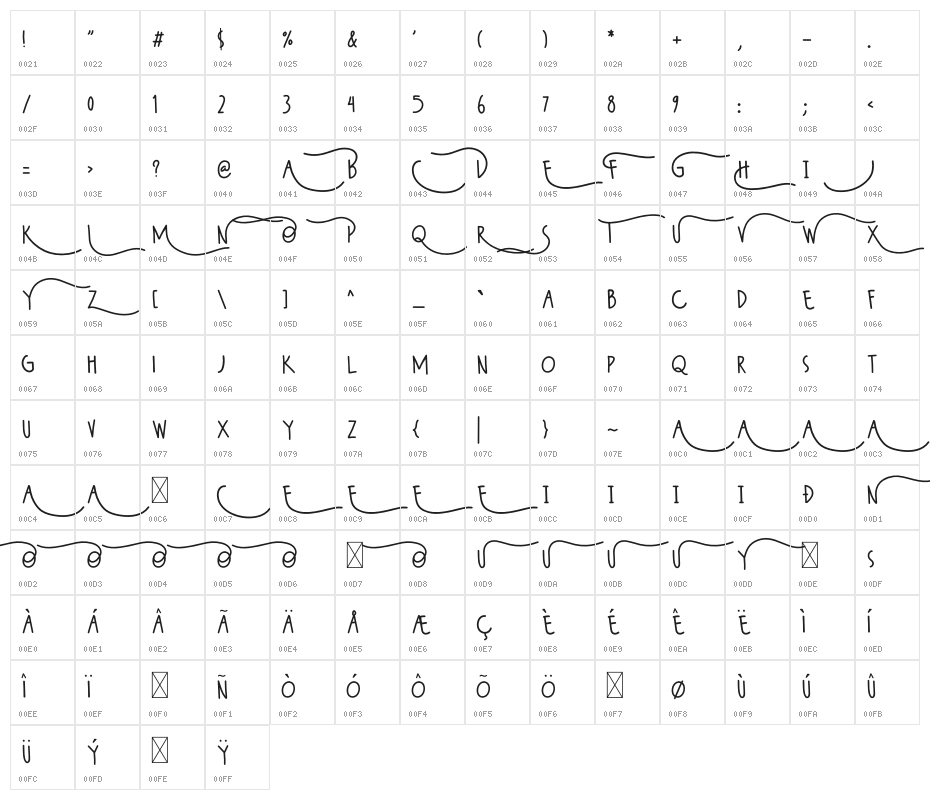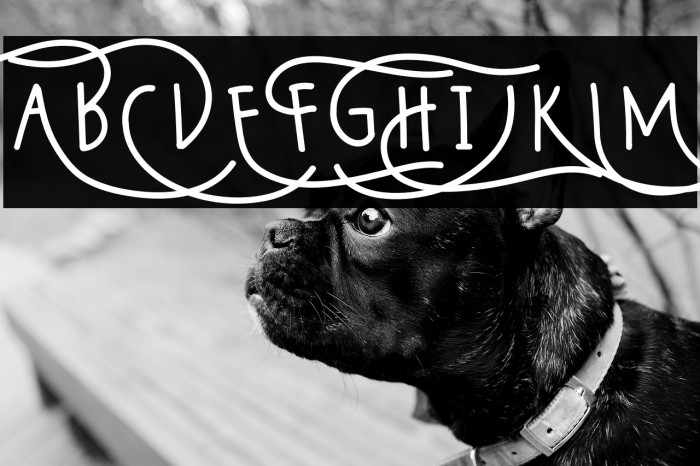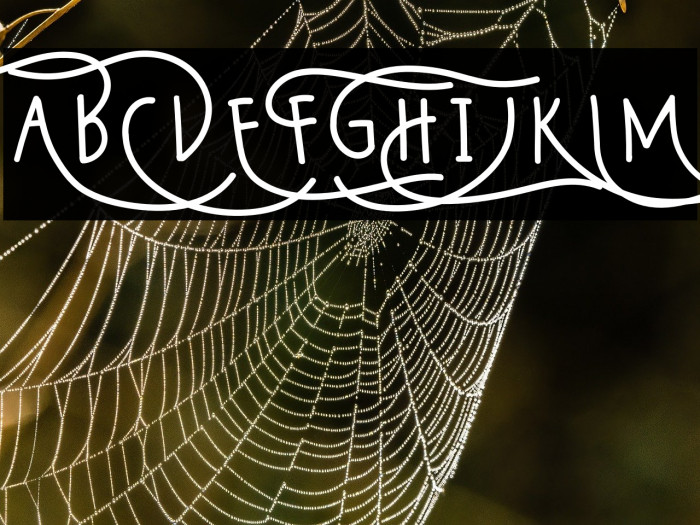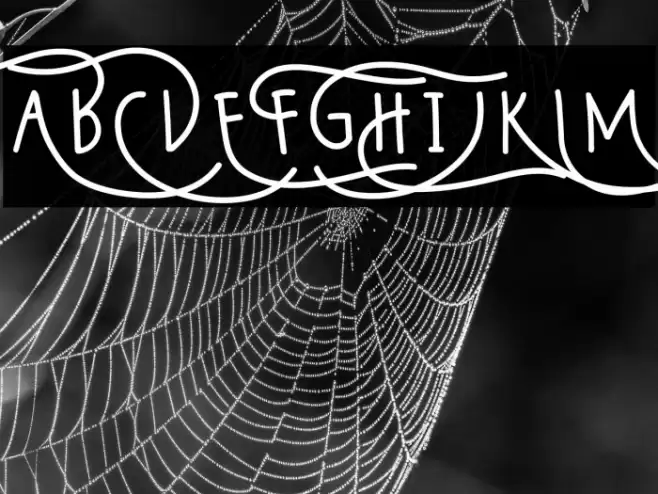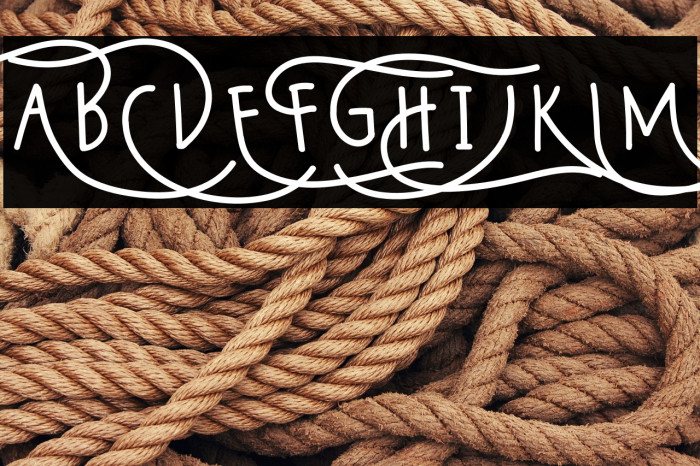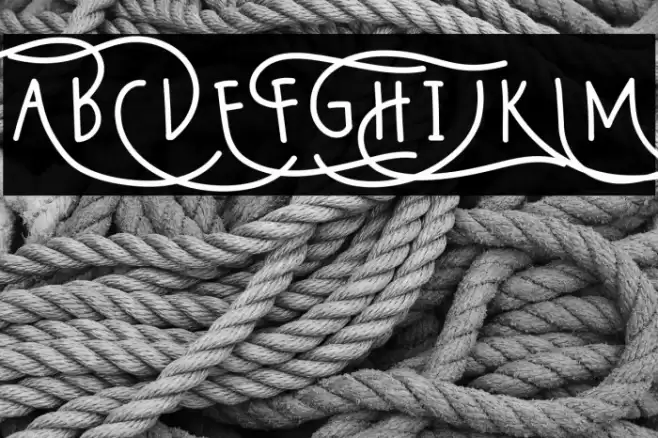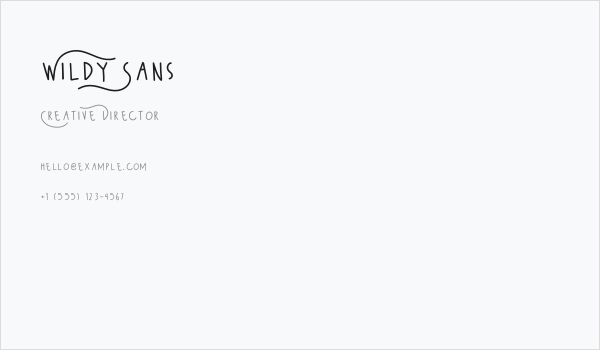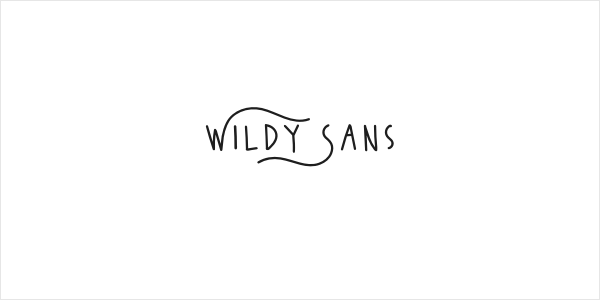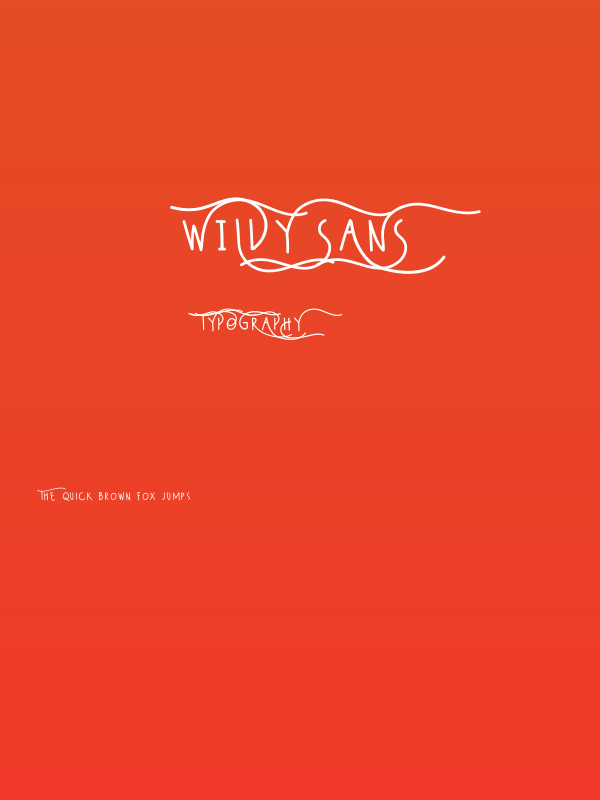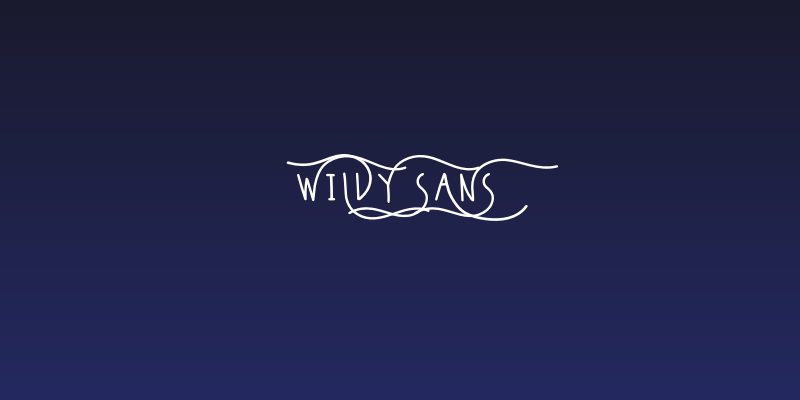
Wildy Sans Font
Wildy Sans Description
This font features a playful and whimsical design, characterized by its irregular, hand-drawn appearance. The letters are slightly tilted and vary in size, giving a dynamic and lively feel. The strokes are consistent in thickness, contributing to a cohesive look despite the quirky style. The uppercase and lowercase letters maintain a similar aesthetic, with rounded edges and a casual flow. Numbers and special characters are crafted with the same playful touch, ensuring uniformity across all elements. This font is ideal for projects that require a fun and informal tone, such as children's books, creative posters, or playful branding.
| Use Case | Headlines, Logos, Informal text |
| Proposed Projects | Ideal for children's books, creative posters, playful branding, and informal invitations. |